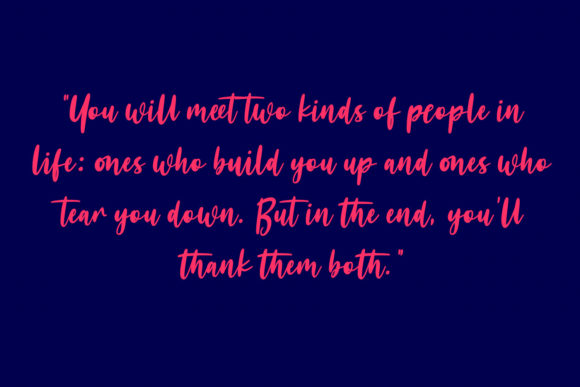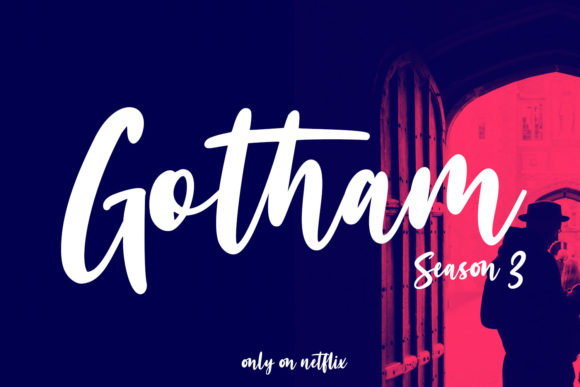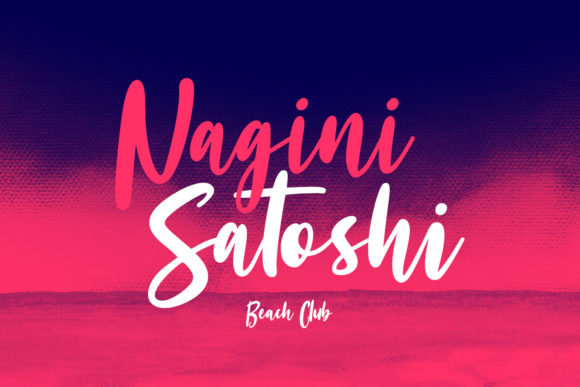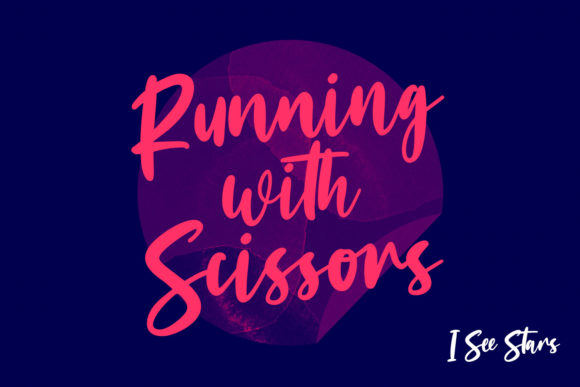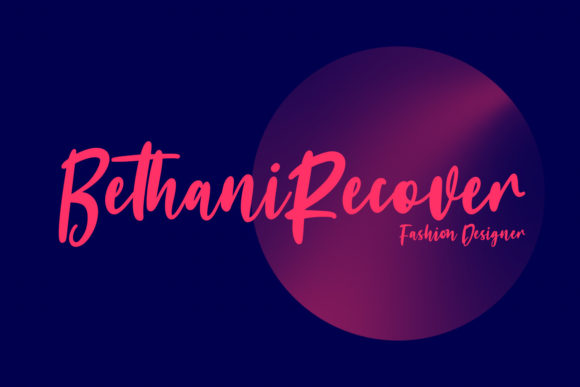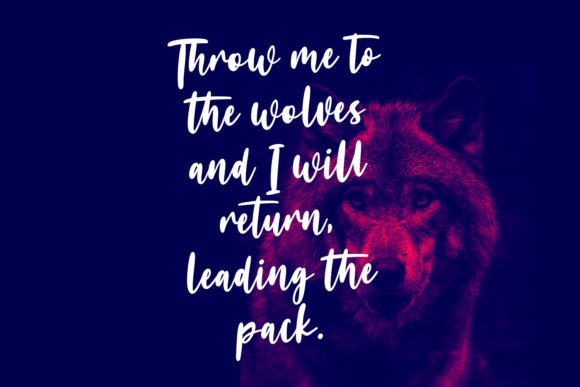
Introducing Anklettes Font: The Ultimate Cursive Script for Elegant Designs
Are you a designer or crafter looking for a font that exudes elegance and sophistication? Look no further than Anklettes Font, a stunning cursive script font that’s perfect for creating beautiful wedding invitations, stationary art, social media posts, and more. In this article, we’ll dive into the world of Anklettes Font and explore its features, uses, and benefits.
What is Anklettes Font?
Anklettes Font is a cursive and relaxed script font that’s designed to add a touch of elegance to your designs. Its ravishing style is perfect for creating gorgeous wedding invitations, beautiful stationary art, eye-catching social media posts, and much more. With its flowing curves and smooth lines, Anklettes Font is sure to capture the attention of your audience and leave a lasting impression.
Key Features of Anklettes Font
- Cursive and Relaxed Style: Anklettes Font features a beautiful cursive and relaxed style that’s perfect for creating elegant designs.
- Easy to Read: Despite its cursive nature, Anklettes Font is easy to read and understand, making it perfect for body text and headings.
- Highly Versatile: Anklettes Font can be used for a wide range of design projects, from wedding invitations and stationary art to social media posts and more.
- Unique and Distinctive: Anklettes Font has a unique and distinctive style that sets it apart from other fonts, making it perfect for designers and crafters who want to stand out.
Uses of Anklettes Font
Anklettes Font is a highly versatile font that can be used for a wide range of design projects, including:
- Wedding Invitations: Create beautiful and elegant wedding invitations that set the tone for the big day.
- Stationary Art: Use Anklettes Font to create stunning stationary art, including greeting cards, thank you cards, and more.
- Social Media Posts: Add a touch of elegance to your social media posts and make them stand out from the crowd.
- Branding and Packaging: Use Anklettes Font to create elegant and sophisticated branding and packaging designs.
Benefits of Using Anklettes Font
There are many benefits to using Anklettes Font in your design projects, including:
- Elegance and Sophistication: Anklettes Font adds a touch of elegance and sophistication to your designs, making them perfect for high-end clients and projects.
- Unique and Memorable: Anklettes Font has a unique and memorable style that sets it apart from other fonts, making it perfect for designers and crafters who want to stand out.
- High-Quality: Anklettes Font is a high-quality font that’s designed to produce crisp and clear results, even at small sizes.
Tips for Using Anklettes Font
Here are a few tips for using Anklettes Font in your design projects:
- Use it for Headings and Titles: Anklettes Font is perfect for headings and titles, where its elegant and sophisticated style can really shine.
- Pair it with Other Fonts: Anklettes Font can be paired with other fonts to create a unique and interesting look.
- Experiment with Different Sizes and Colors: Don’t be afraid to experiment with different sizes and colors of Anklettes Font to find the perfect look for your design.
Anklettes Font is a stunning cursive script font that’s perfect for designers and crafters who want to add a touch of elegance and sophistication to their designs. With its unique and distinctive style, Anklettes Font is sure to capture the attention of your audience and leave a lasting impression. Whether you’re creating wedding invitations, stationary art, social media posts, or more, Anklettes Font is the perfect choice.